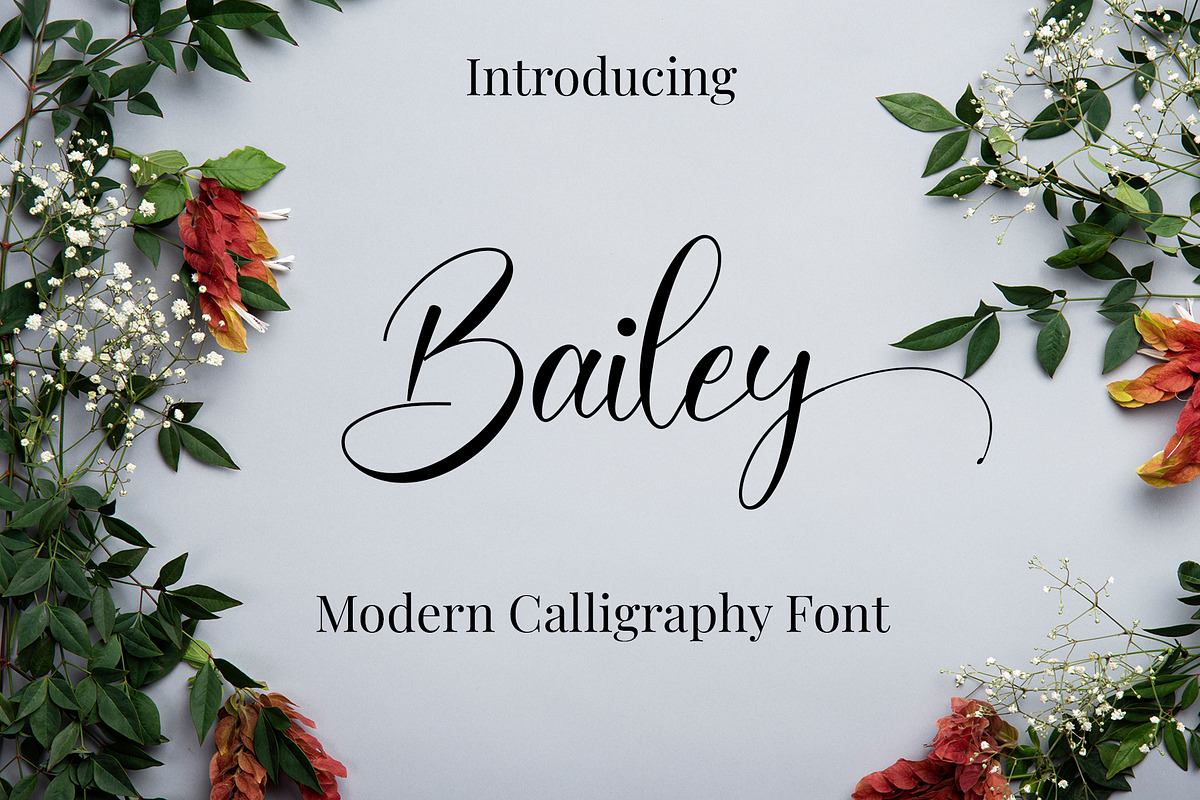
Bailey – Wedding Font Free Download is a graceful and romantic script typeface designed specifically for wedding designs and elegant occasions. With flowing strokes, delicate curves, and a timeless handwritten feel, Bailey is perfect for invitations, save-the-dates, seating charts, signage, and all your bridal stationery needs.
Its soft, sophisticated style brings warmth and beauty to every letter, capturing the emotional essence of life’s most cherished moments. Whether you're designing for your big day or a client’s, Bailey offers the perfect blend of charm and class.
Designers love Bailey for its versatility in print and digital use, making it ideal for wedding brands, event planners, and romantic projects. Want to create love-filled designs? Download Bailey – Wedding Font Free Download and let your typography speak from the heart.